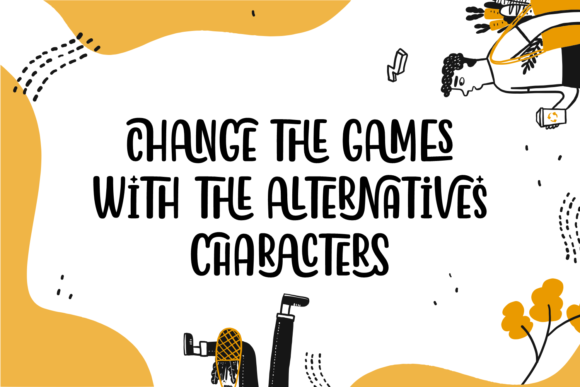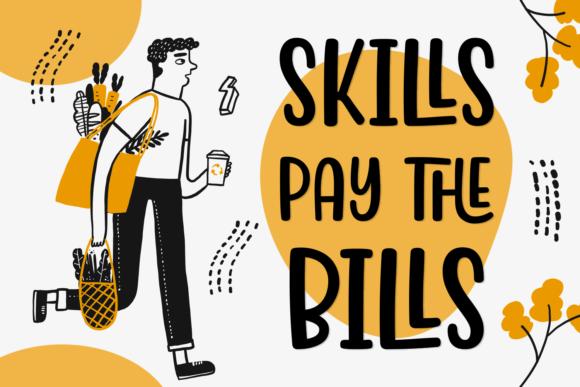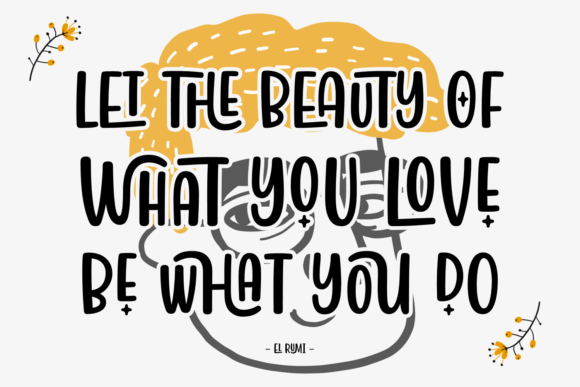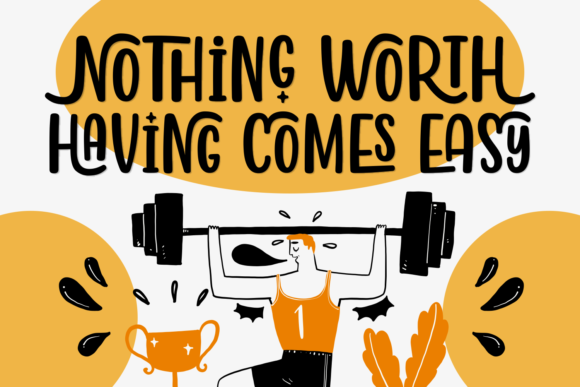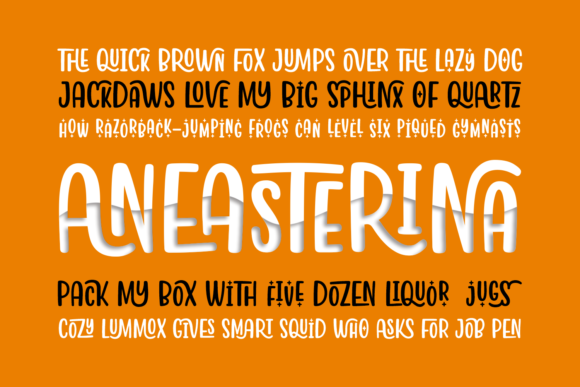
Aneasterina Font
About Aneasterina Font
Aneasterina is a casual, cute handwritten font, created by using a marker. Clean and a little bit quirky, this font is the perfect fit for all of your logos, branding, social media, and crafty DIY projects.